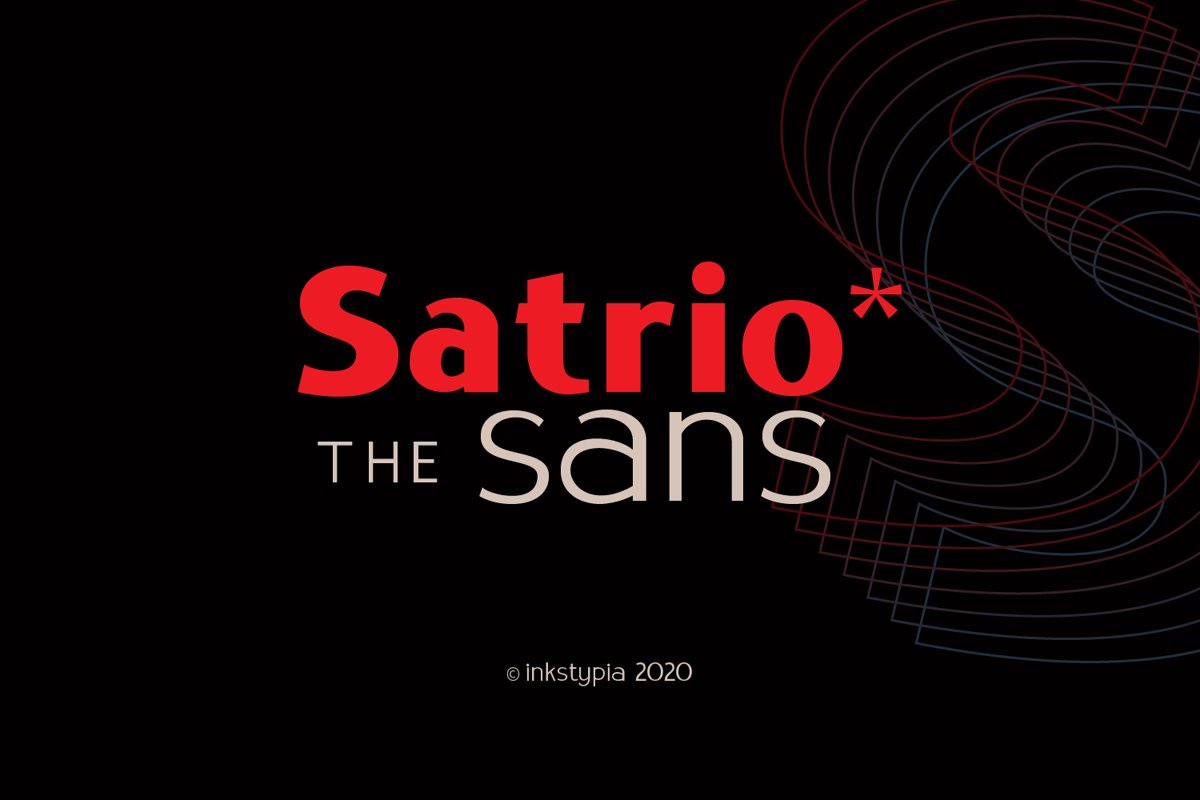
Satrio
Introducing Satrio, a Sans Serif typeface with a minimalist classic feel, suitable for long texts or large headings with 2 style (Normal and Slant) and 10 thicknesses (Thin to Extra Black). This font can also be used for logo design, labels, book layouts, Posters, etc.